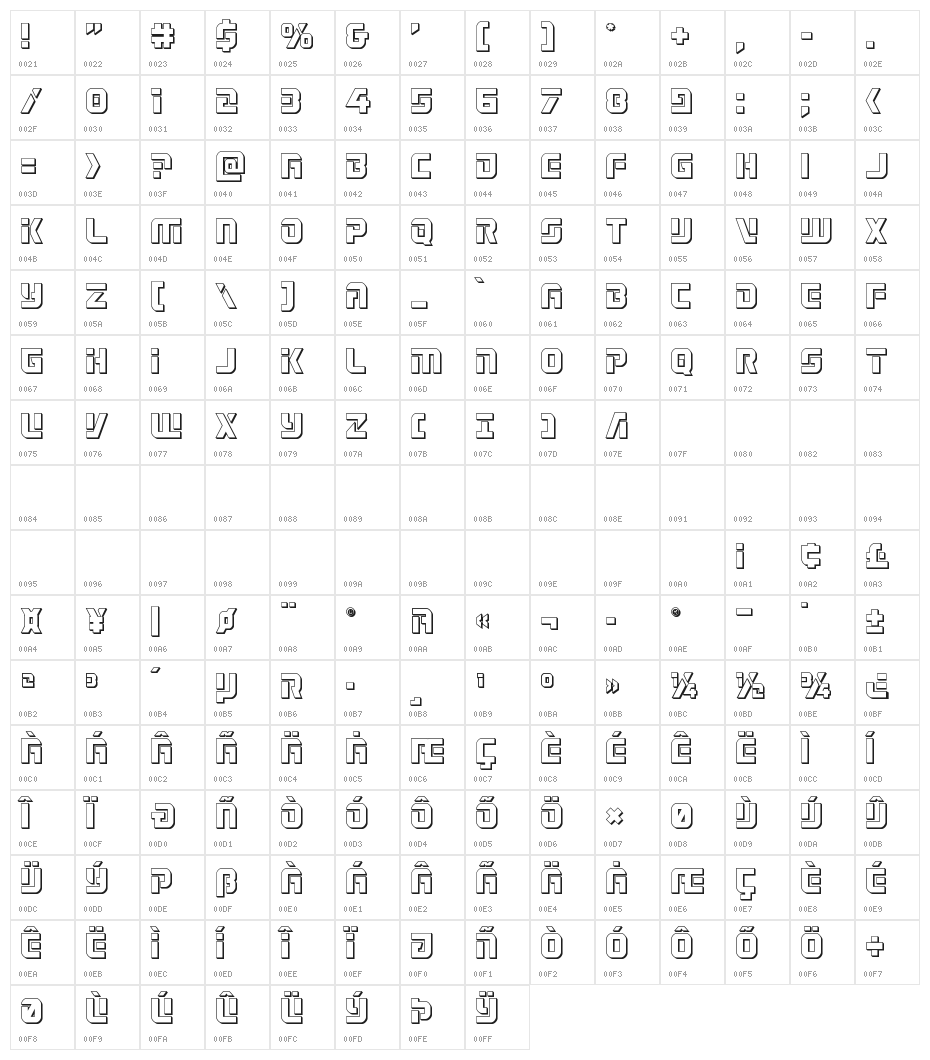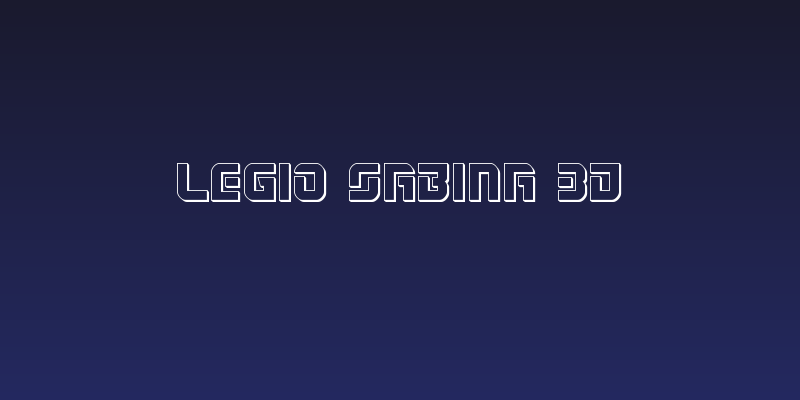
Legio Sabina 3D Font
Legio Sabina 3D Description
This font features a bold, geometric design with a 3D effect that gives it a striking and modern appearance. The characters are constructed with thick lines and sharp angles, creating a sense of depth and dimension. The uppercase and lowercase letters maintain a consistent style, with a futuristic and industrial feel. The numbers and special characters are equally bold, ensuring uniformity across all elements. This font's unique style makes it ideal for projects that require a strong visual impact.
Proposed ProjectsIdeal for branding, posters, video game graphics, and futuristic-themed designs.